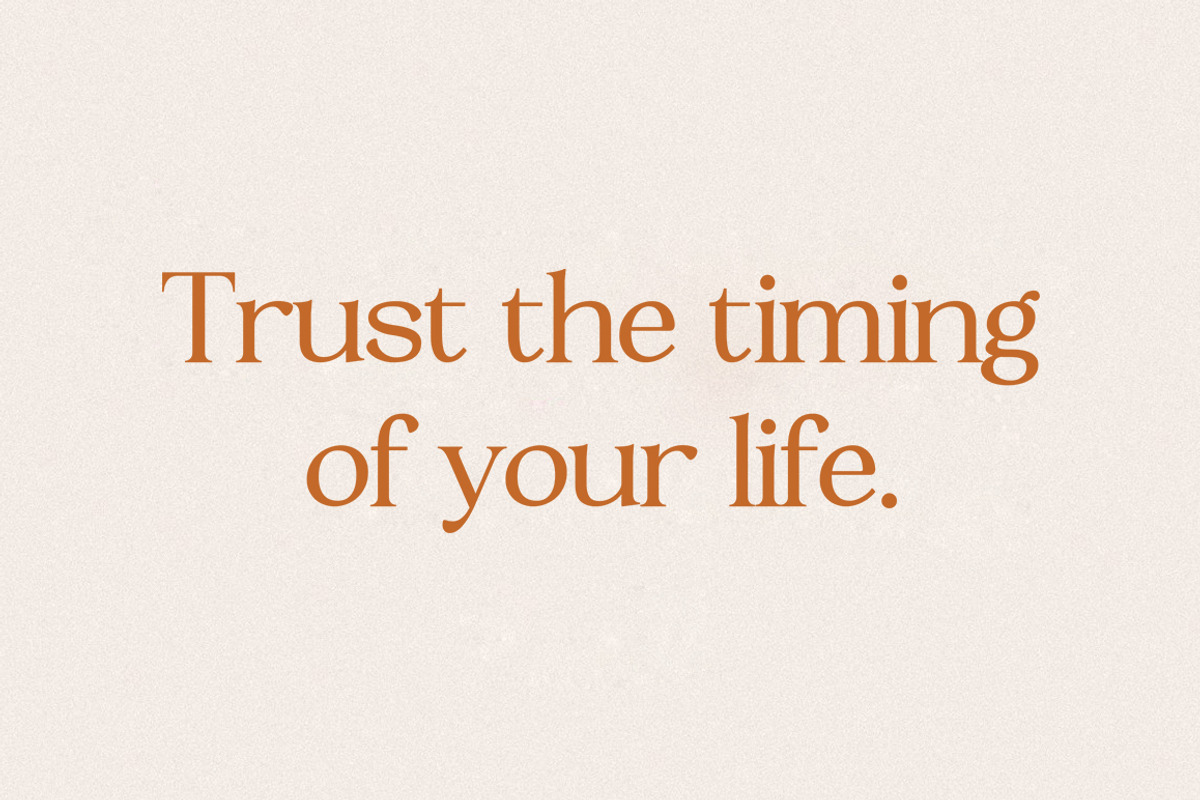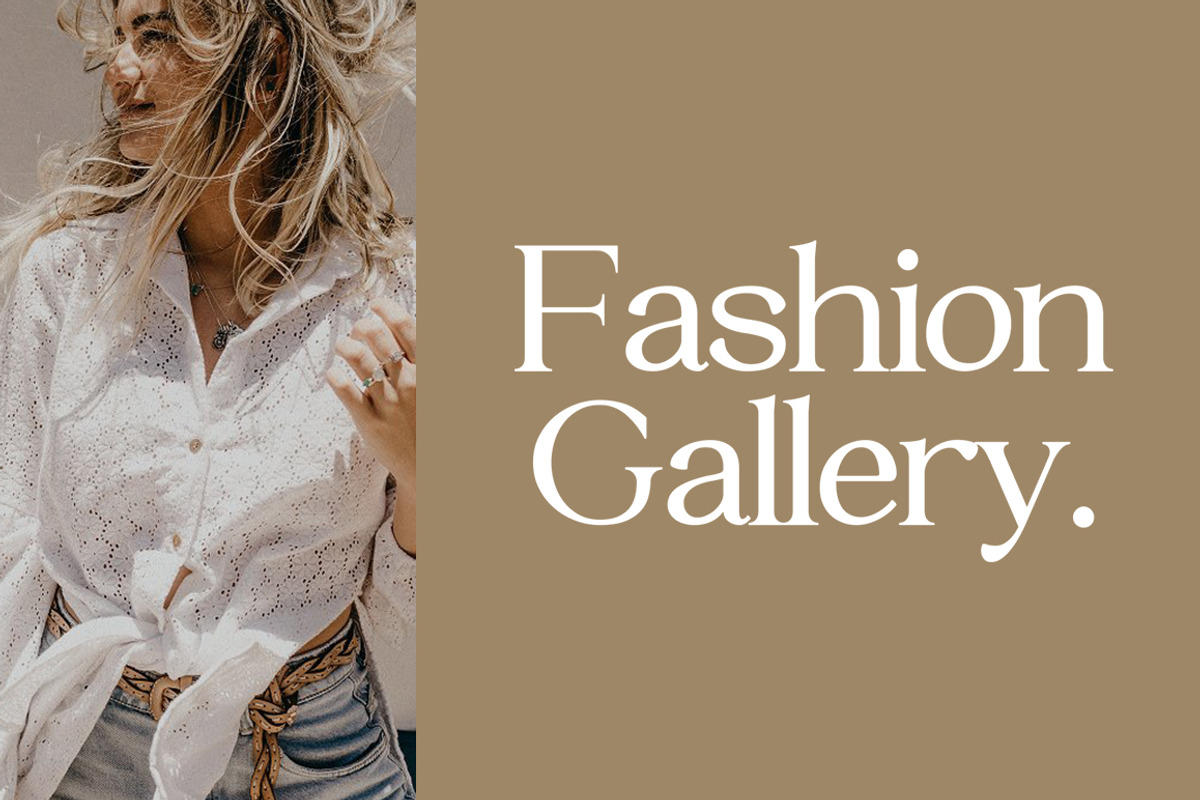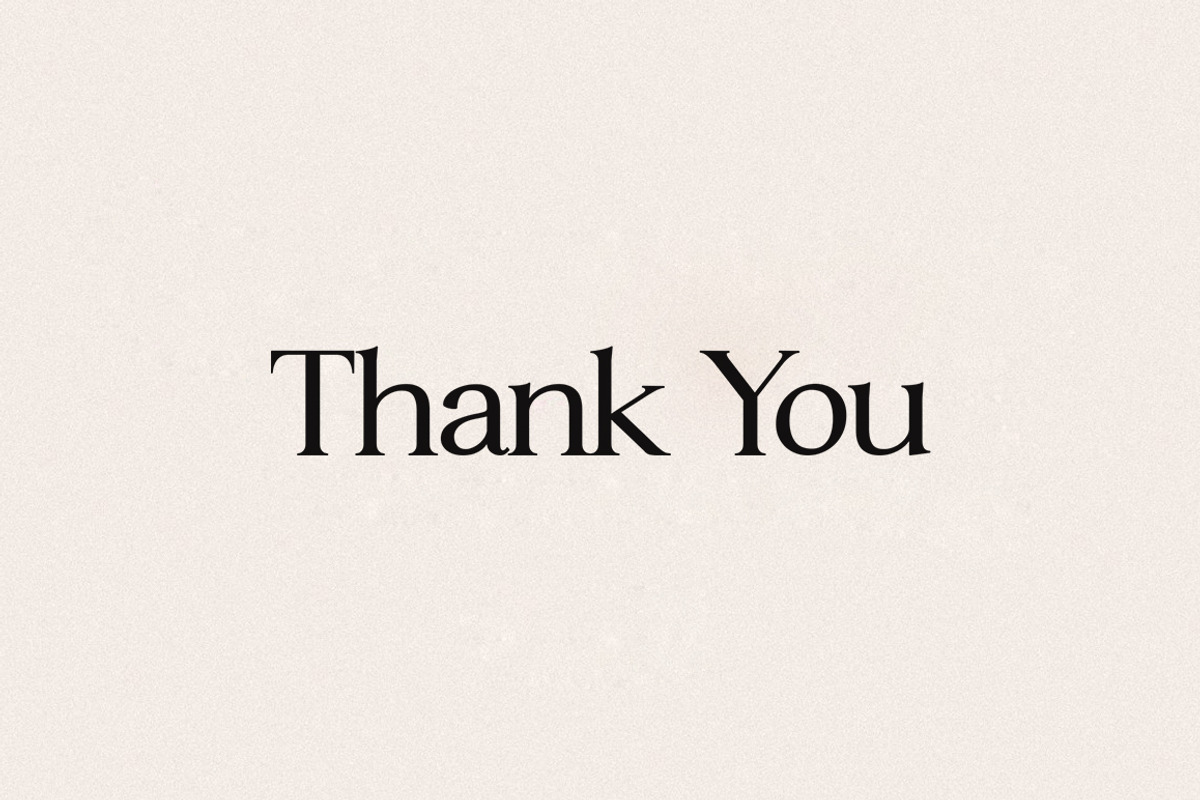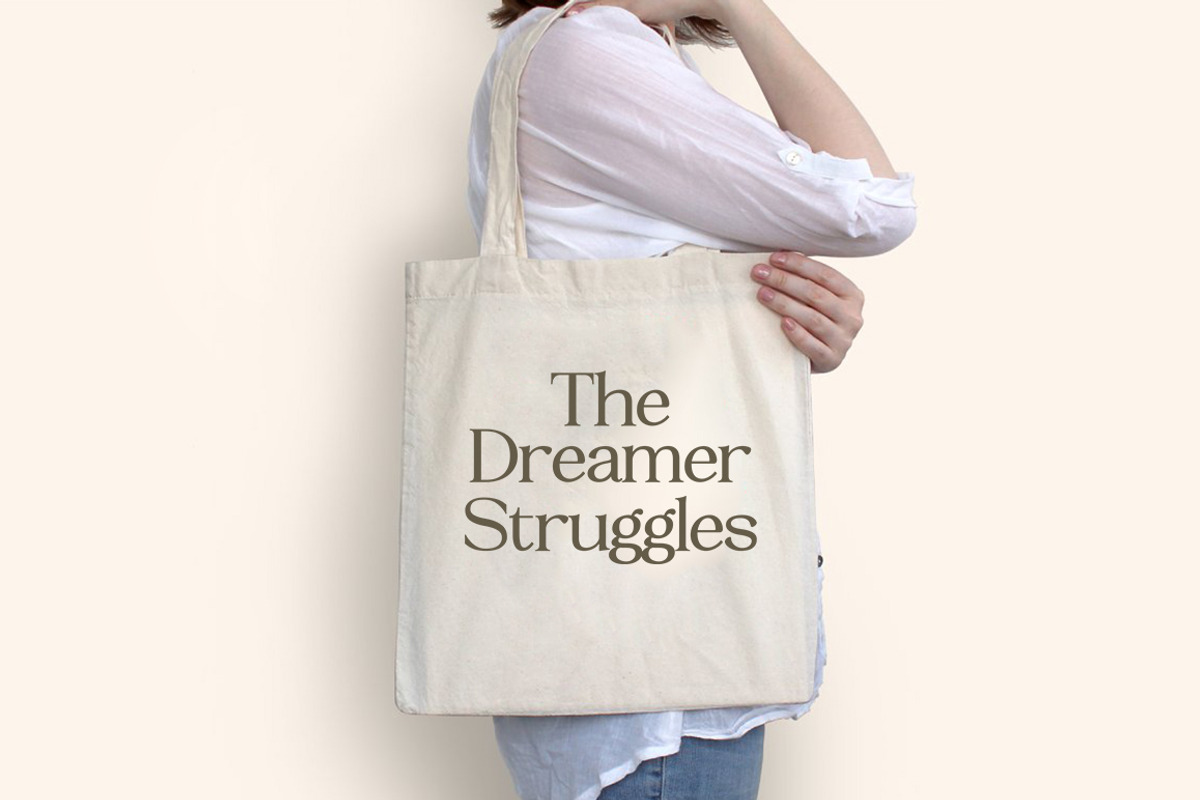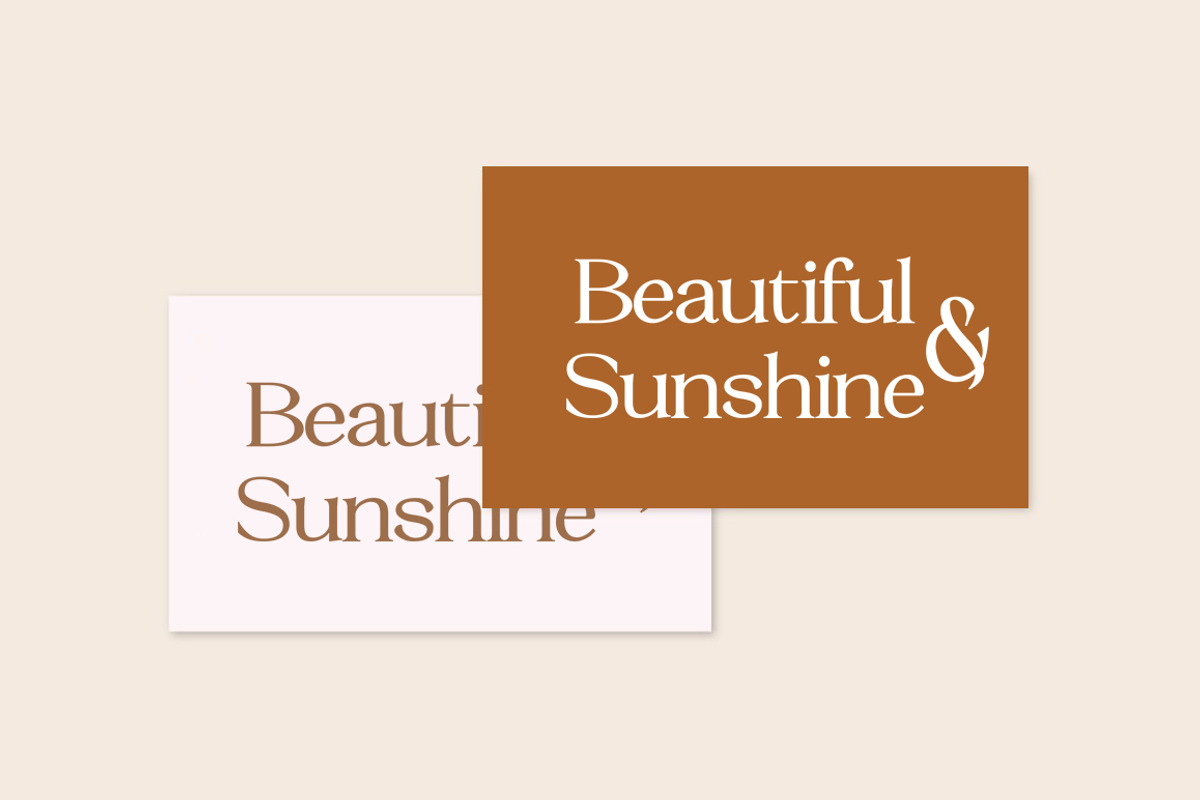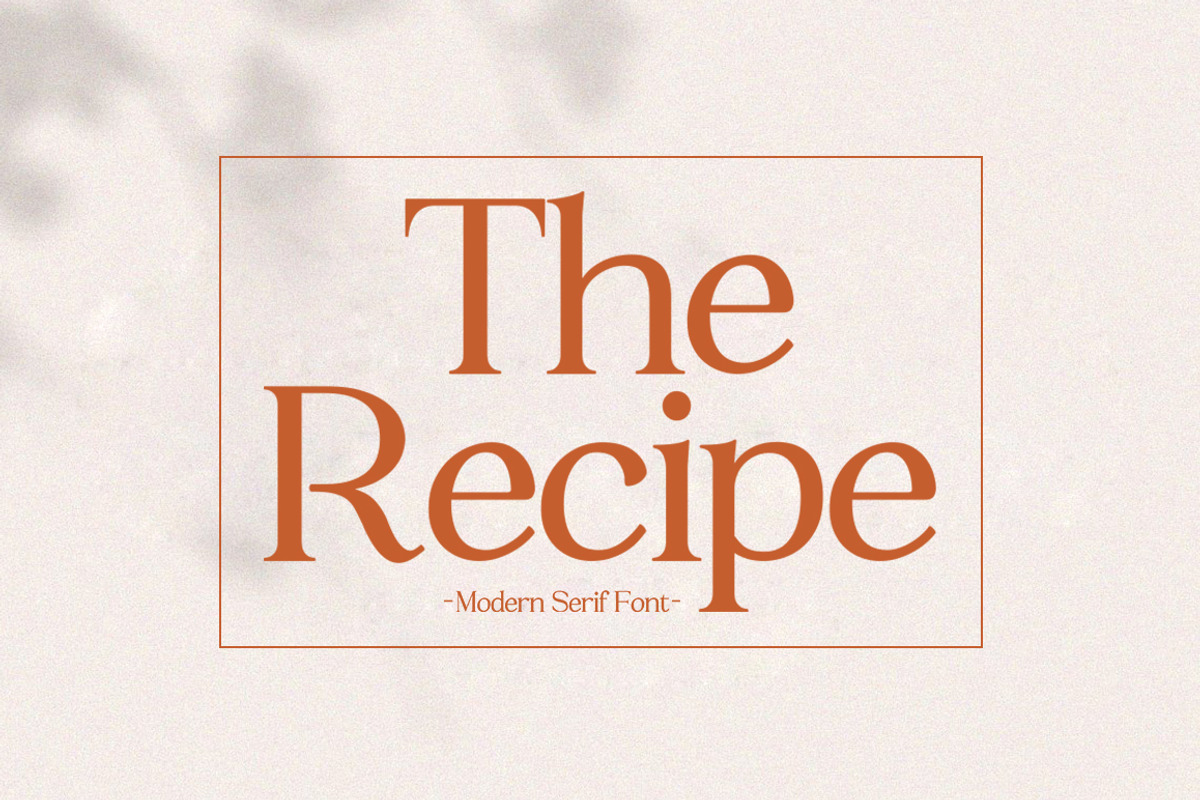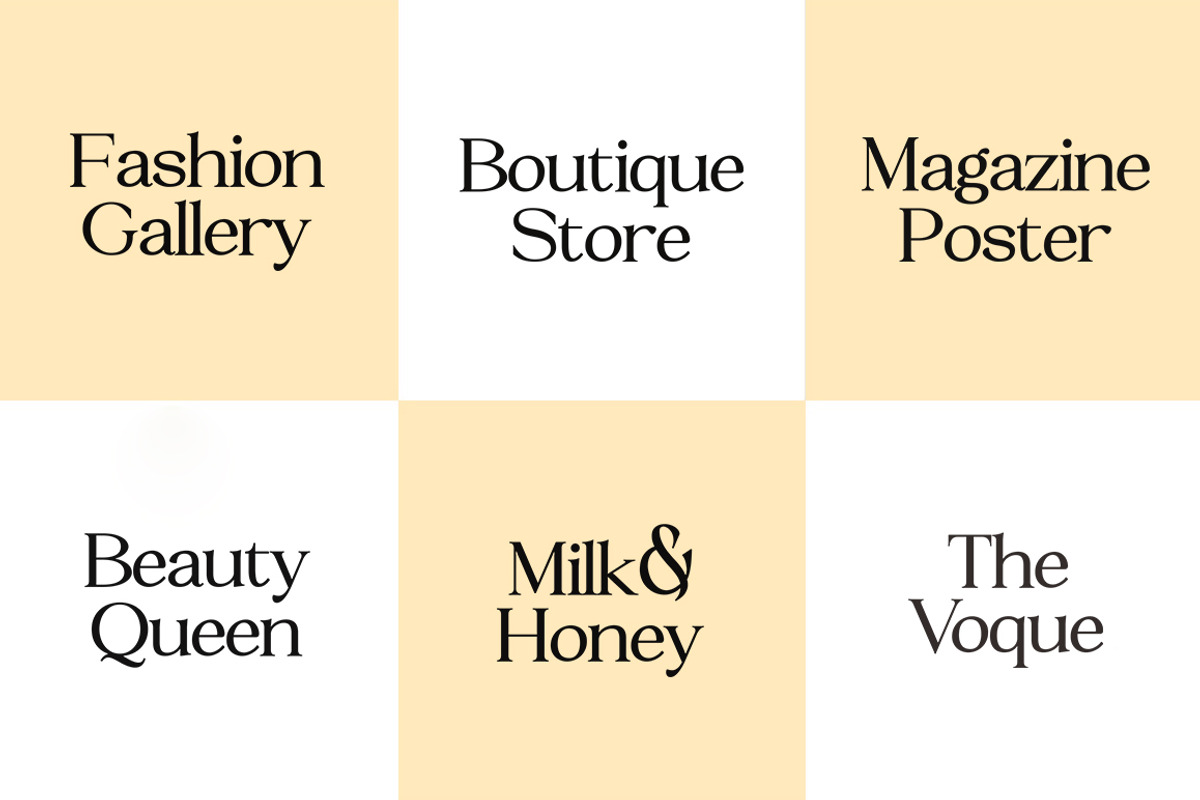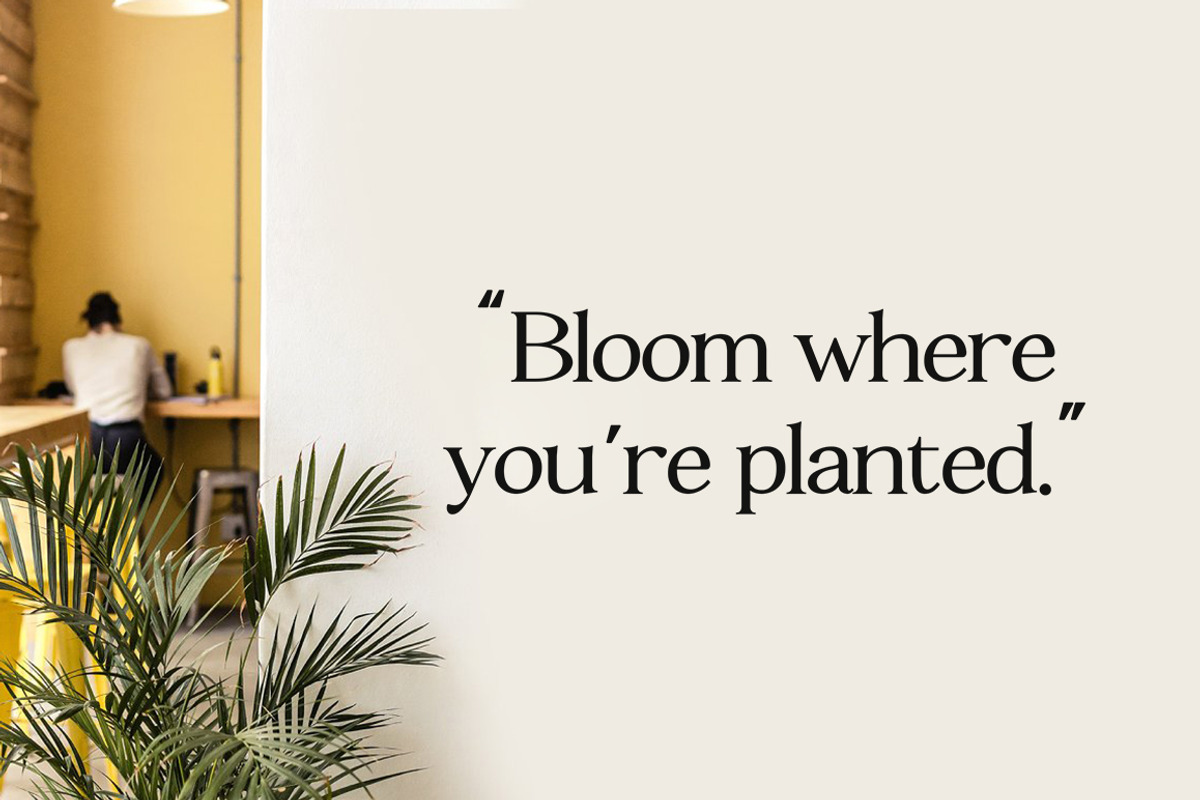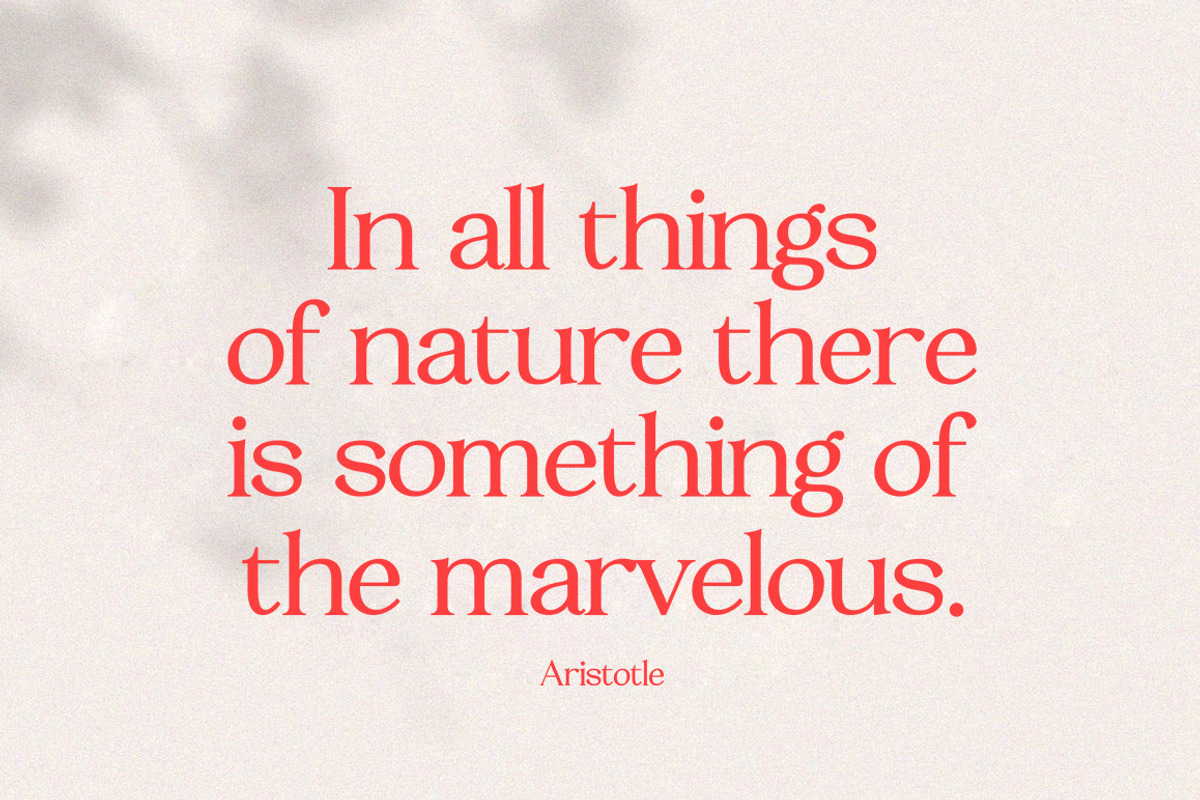
The Recipe - Luxury Serif Font
The Recipe font is a collections of a modern, feminine, beauty and classy characters, give you unique looks for any branding or logo design needs. The Recipe font is mix of beauty and classy feels, which has a wide range of uses but was mainly intended for logos, perfumes, fashion magazines, invitations, or book covers. Not only you’ll find many decorative characters, but also amount of unique alternate characters will make you really adore this font.
uppercase and lowercase letters
multilingual characters
numerals & punctuations